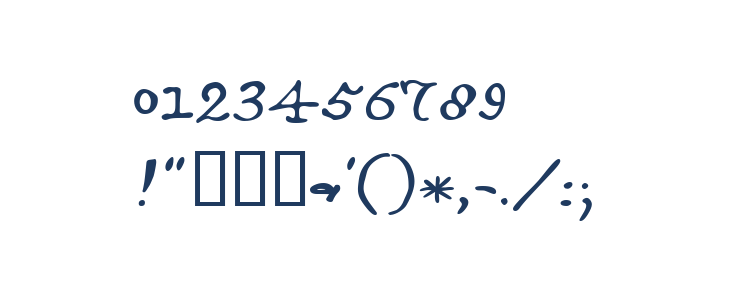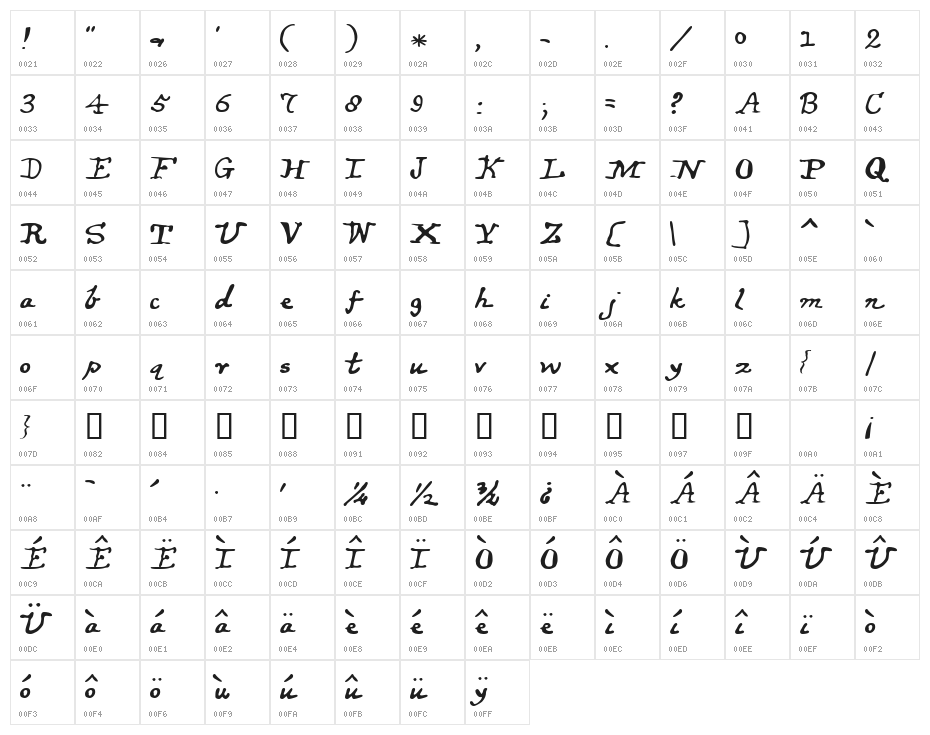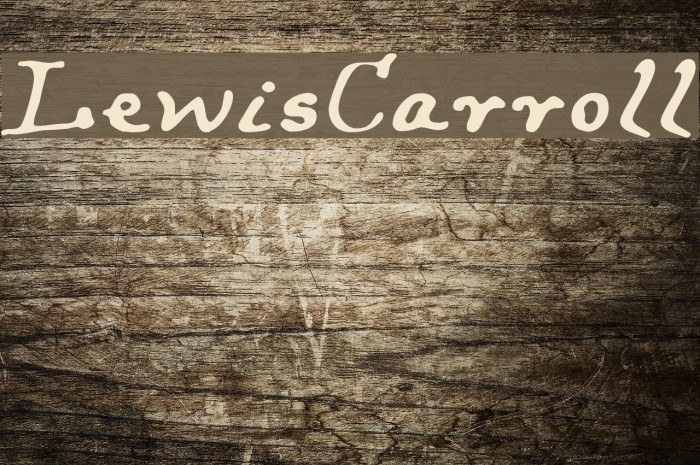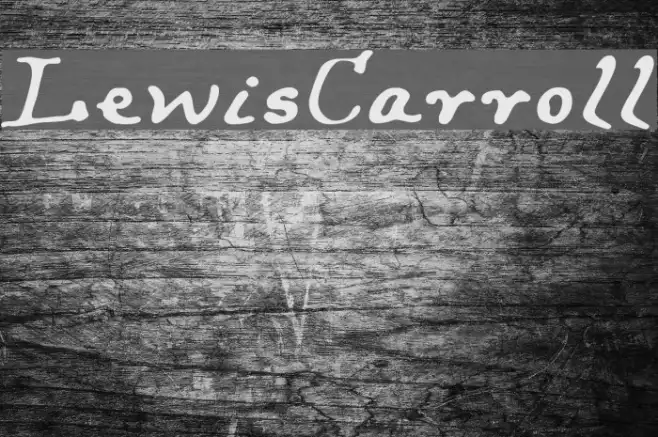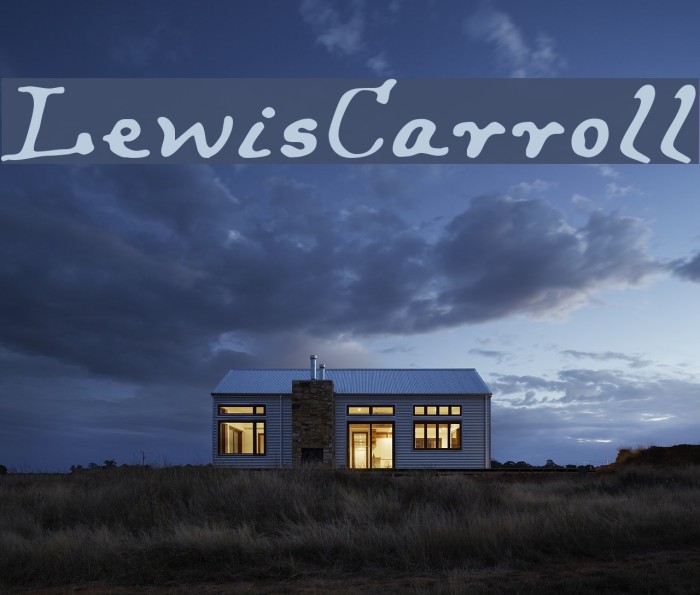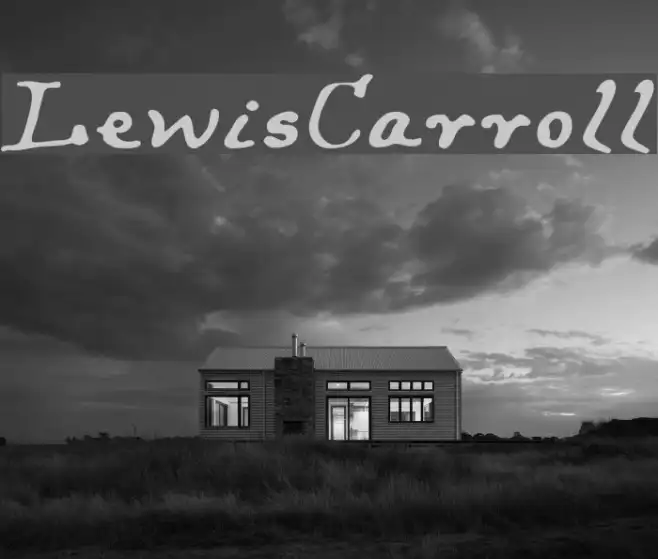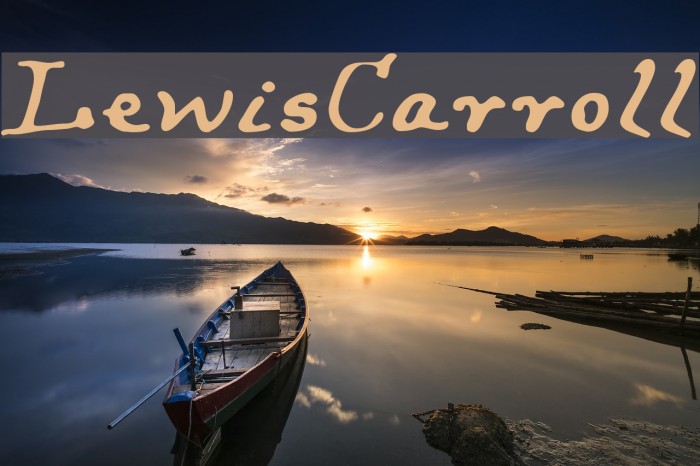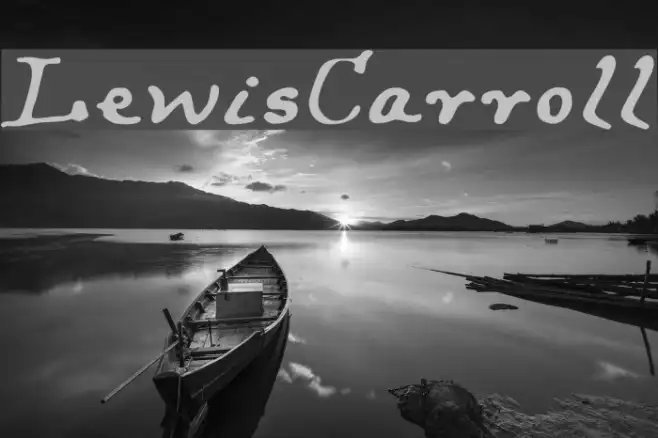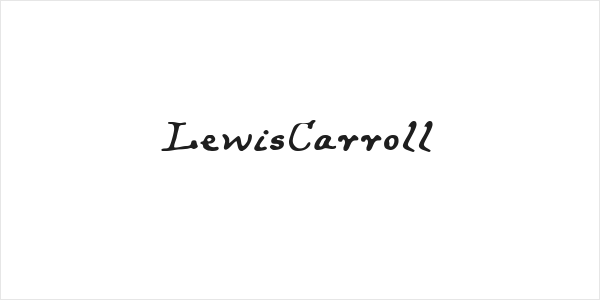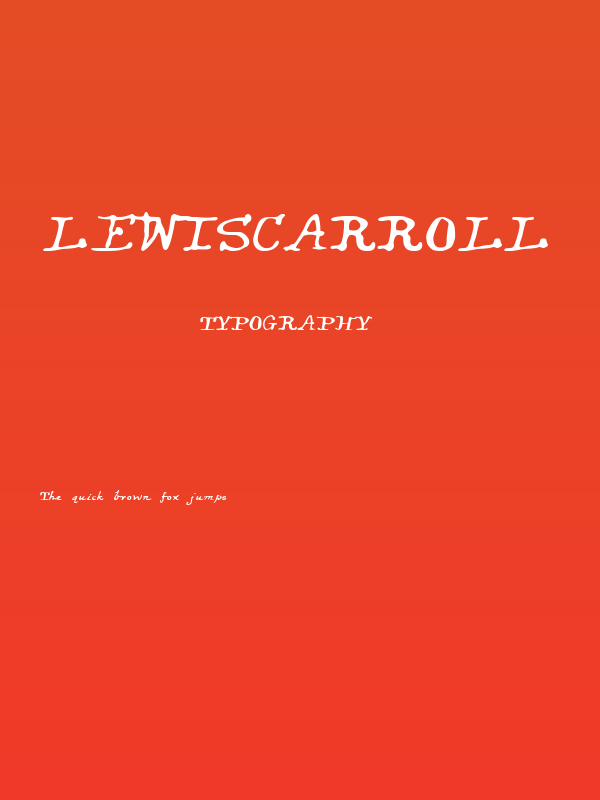
LewisCarroll Font
LewisCarroll Description
This font features a distinctive handwritten style that combines both elegance and playfulness. The uppercase letters are slightly slanted, with a consistent stroke width that gives them a uniform appearance. The lowercase letters maintain a fluid, cursive quality, enhancing the overall handwritten feel. Numbers are bold and clear, ensuring readability. Special characters are creatively designed, adding a unique touch to the font's personality. The font's organic flow and slight irregularities in stroke make it ideal for projects that require a personal, human touch.